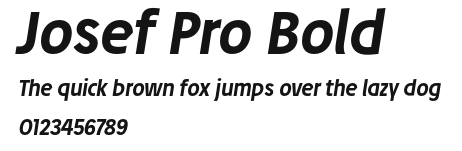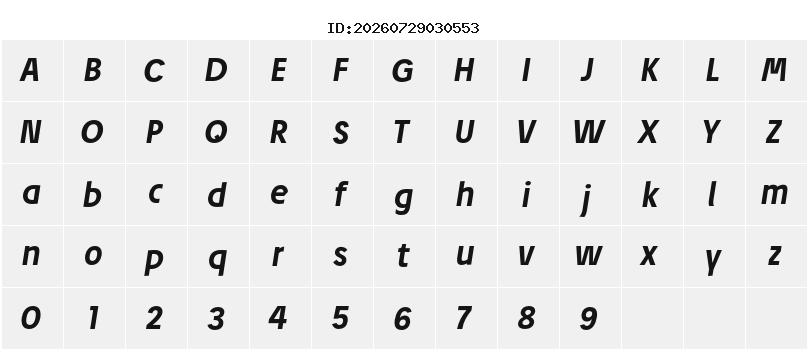
• Font Name: Josef Pro Bold
• Font ID: IngoZimmermann,Augsburg.INMEMORIAMJOSEFZIMMERMANN: Josef Pro Bold Italic: 2006
• Full Font Name: JosefProBold-Italic
• PostScript Name: JosefProBold-Italic
• Character Count: 374
• Designer: Ingo Zimmermann
• Manufacturer: Ingo Zimmermann, Augsburg. IN MEMORIAM JOSEF ZIMMERMANN
Josef Pro Bold.otf is a modern, elegant sans-serif font designed for ultimate readability and visual harmony. Perfect for branding, headlines, web design, and print materials.